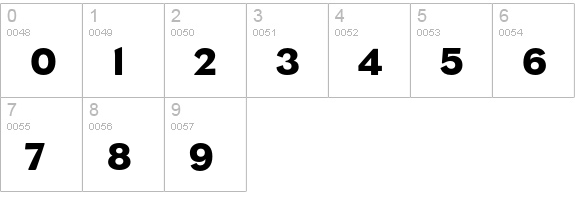
Eagle-Book is a comfortable, highly readable variant in the Eagle typeface family \xE2\x80\x94 well suited to long-form body text, articles, and editorial content.
Eagle-Book is a stunning font that embodies elegance and sophistication. Its sleek and modern design is perfect for a wide range of projects, from branding and packaging to editorial and web design. With its clean lines and well-balanced proportions, Eagle-Book exudes professionalism and versatility. This font is not only visually appealing but also incredibly easy to read, making it ideal for both large blocks of text and smaller, more intricate designs. Its legibility ensures that your message will be conveyed effortlessly, capturing the attention of your audience. One of the best things about Eagle-Book is that it is free! Yes, you read that right. This exceptional font can be freely downloaded from FontsMarket.com. Whether you're a professional designer or someone looking to add a touch of sophistication to your personal projects, Eagle-Book is the perfect choice. Featuring a vast array of characters, including uppercase and lowercase letters, numbers, punctuation marks, and special symbols, Eagle-Book provides everything you need to bring your creative visions to life. Its extensive character set allows for seamless integration into various design applications and platforms. With its timeless appeal and versatile nature, Eagle-Book is a font that will never go out of style. Its clean and refined aesthetic will elevate any project, giving it a touch of elegance and professionalism. So why wait? Visit FontsMarket.com today and download Eagle-Book for free. Unleash your creativity and let this exceptional font take your designs to new heights.